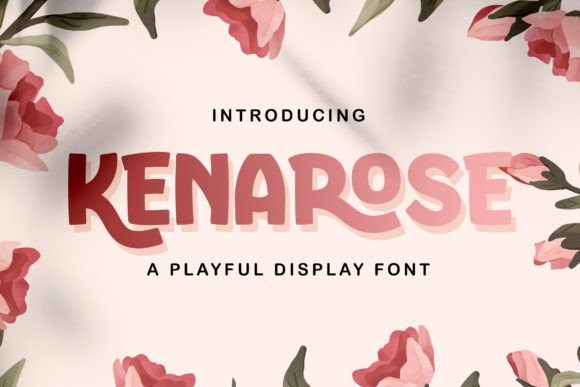
Introducing Kenarose, the whimsical display font that sparks joy and creativity!
Step into a world of playful typography with Kenarose, created by the talented StringLabs. This font dances across the page with its charming curves and spirited letterforms, ready to transform your designs into captivating adventures.
Whether you're crafting magical landscapes for RPG games or creating cheerful posters for school projects, Kenarose empowers you to express your imagination with flair. Its playful spirit adds a touch of whimsy to any digital realm, while its fresh and modern style keeps your designs feeling current and engaging.
Kenarose is a versatile font that adapts effortlessly to a wide range of typographic challenges. Use it to create eye-catching headlines that demand attention or craft whimsical body text that invites readers to embark on a journey of imagination. The possibilities are endless!
With Kenarose, you're not just downloading a font – you're inviting a playful companion into your creative toolbox. Let its spirited characters bring a smile to your face and ignite the spark of innovation in your designs.
Join the creative revolution with Kenarose, and discover a world where typography is anything but ordinary!